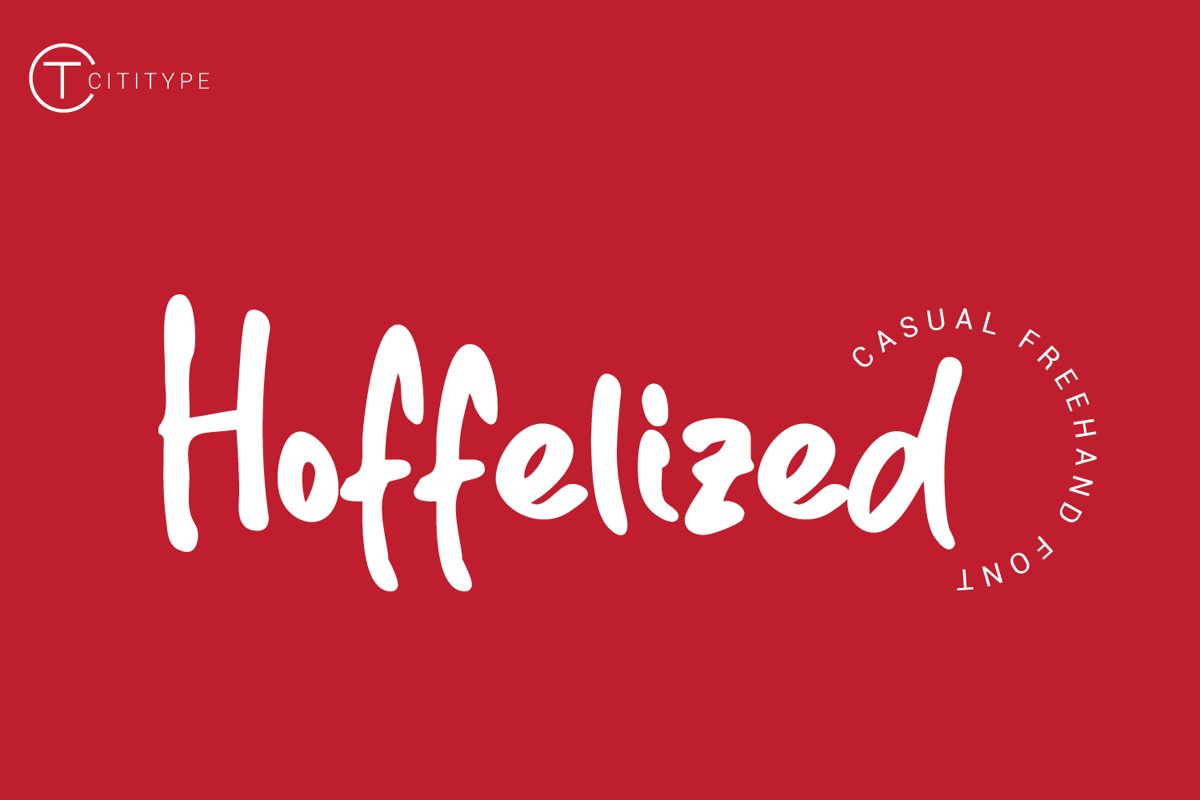
Hoffelized
Hoffelized is a unique handwritten font, looks relaxed, suitable
for a variety of memorable branding away from formality, youthful and
contemporary.
in the form of text writing looks fun, we made it manually
with markers.
very natural.
You can print on clothes or media to write a quote or
message.